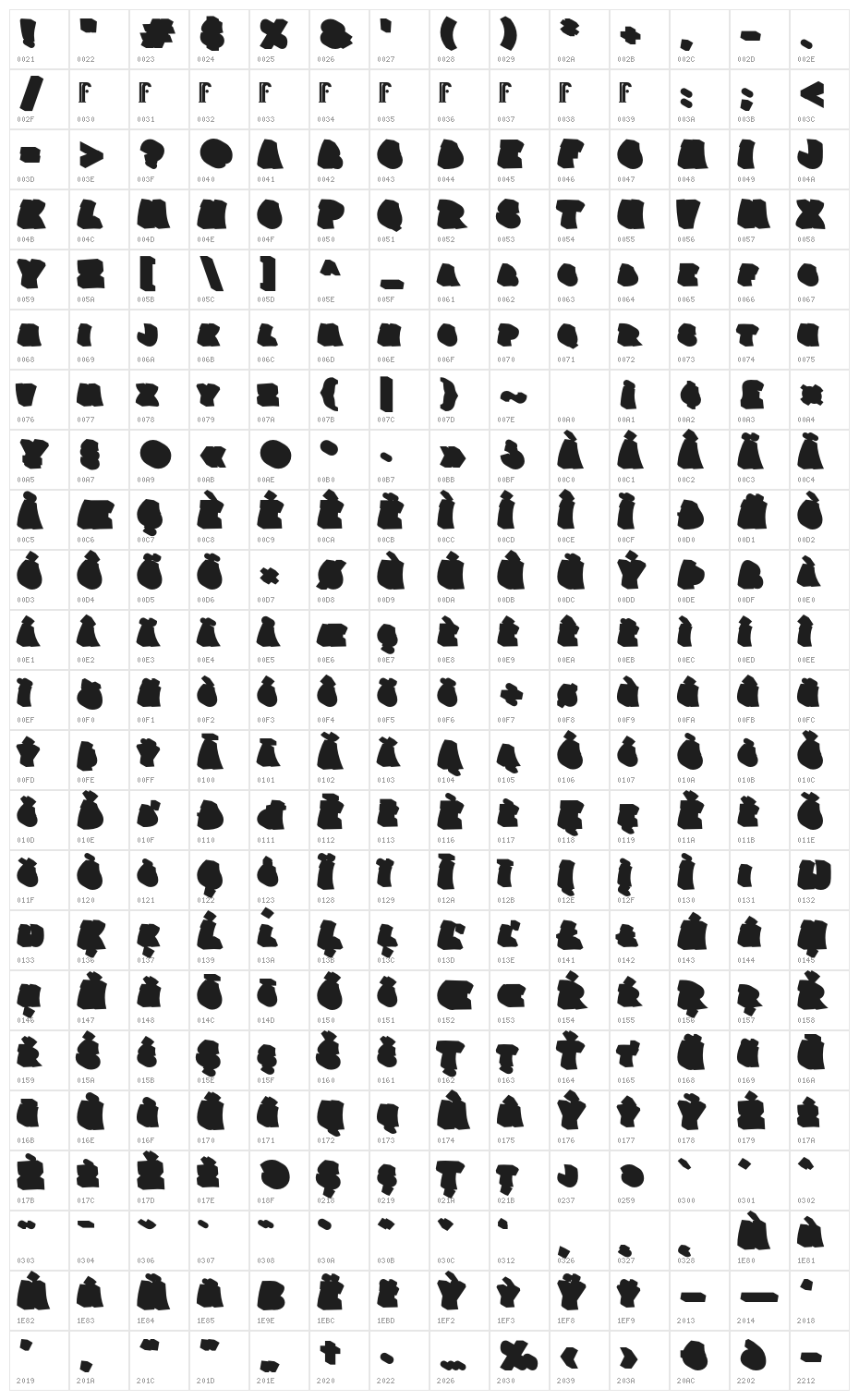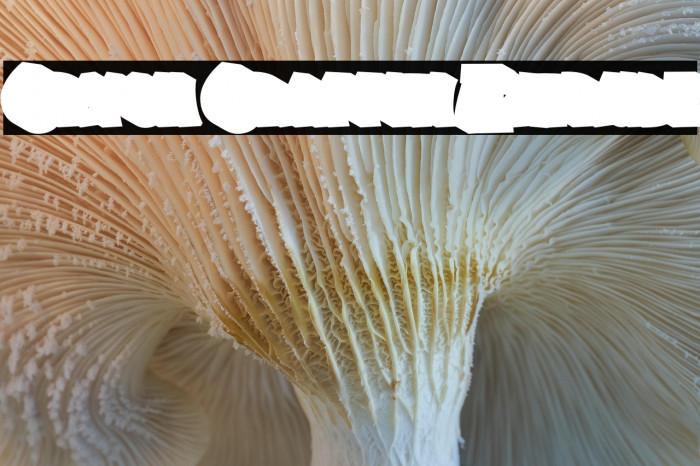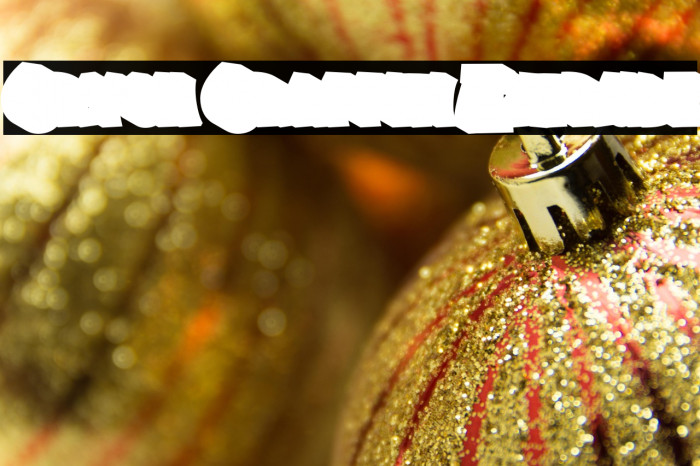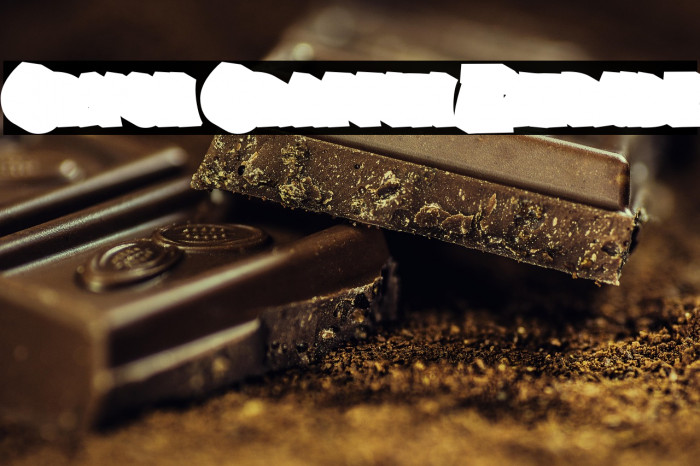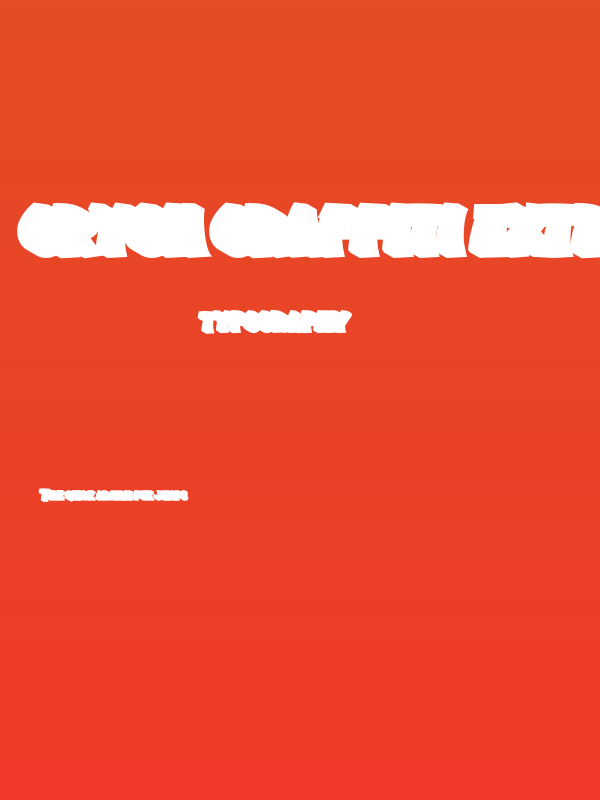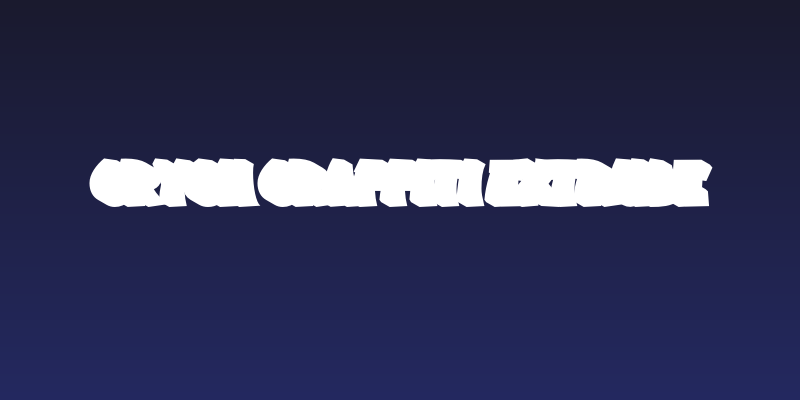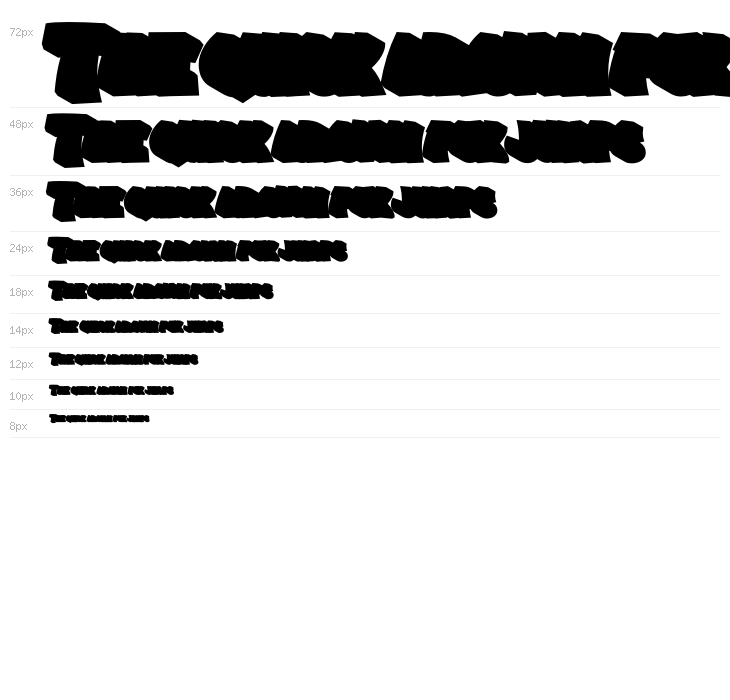
Crysh Graffiti Extrude Font
Crysh Graffiti Extrude Description
This font features a bold, three-dimensional graffiti style with a strong extruded effect, giving it a dynamic and eye-catching appearance. The letters are heavily stylized with sharp angles and a chunky, robust form that conveys a sense of urban energy and creativity. The characters are tightly spaced, enhancing the compact and impactful nature of the design. The font's high contrast between the thick strokes and the deep shadows adds depth and a sense of movement, making it ideal for projects that require a bold statement. Its unique style is reminiscent of street art, making it suitable for modern, edgy designs.
| Overall Style | Modern, Urban, Edgy |
| Proposed Projects | Ideal for street art-inspired designs, music album covers, urban-themed posters, and edgy branding projects. |